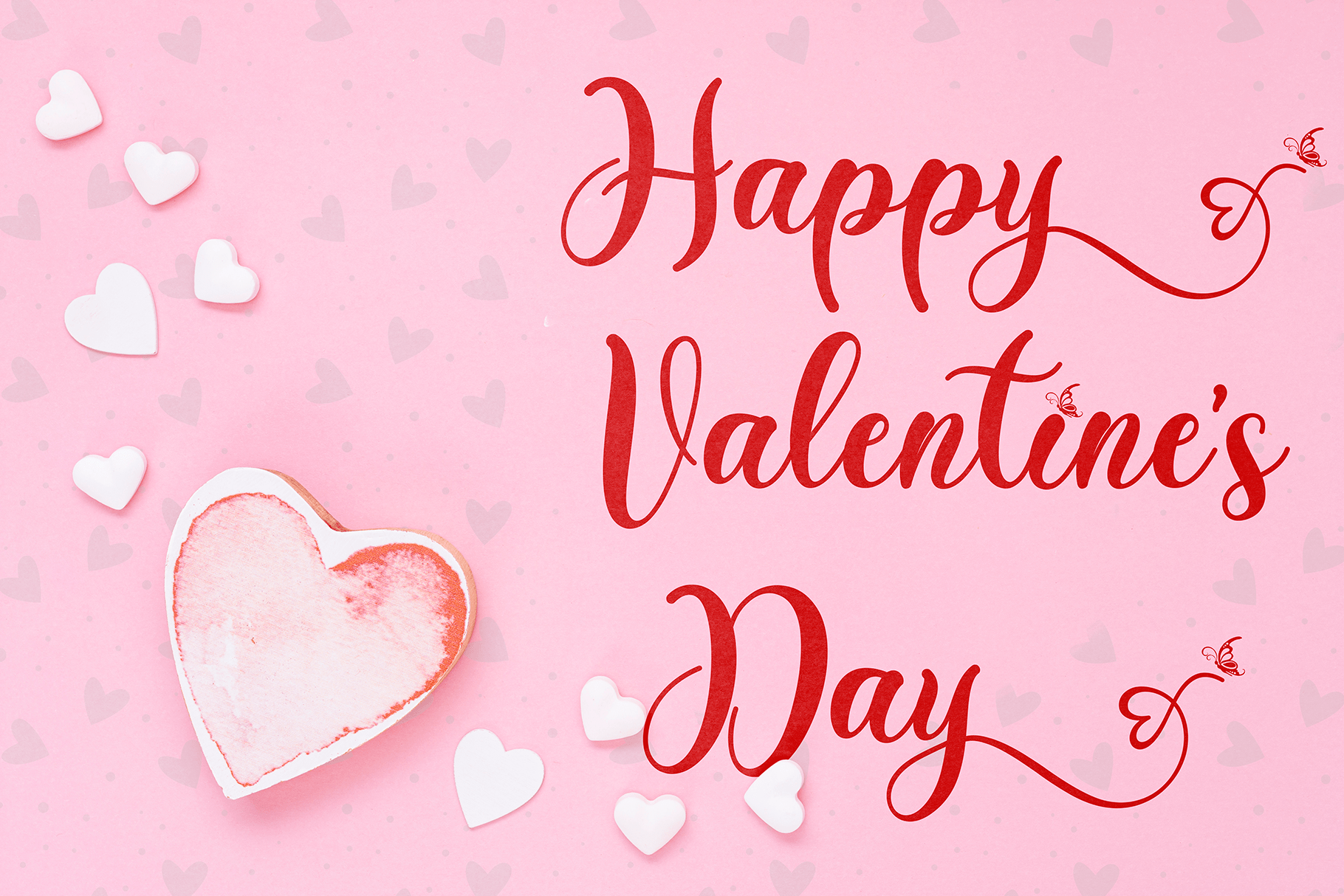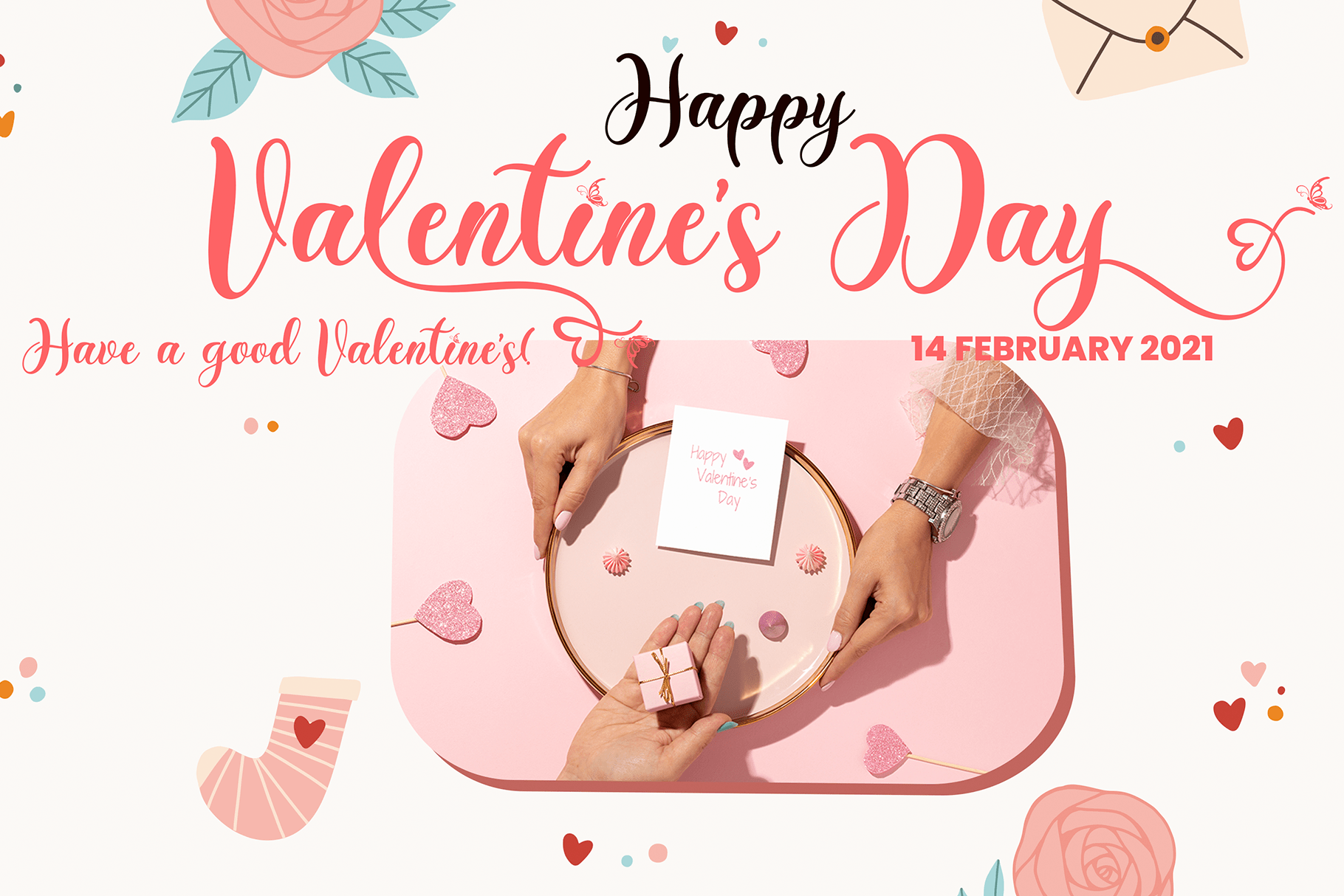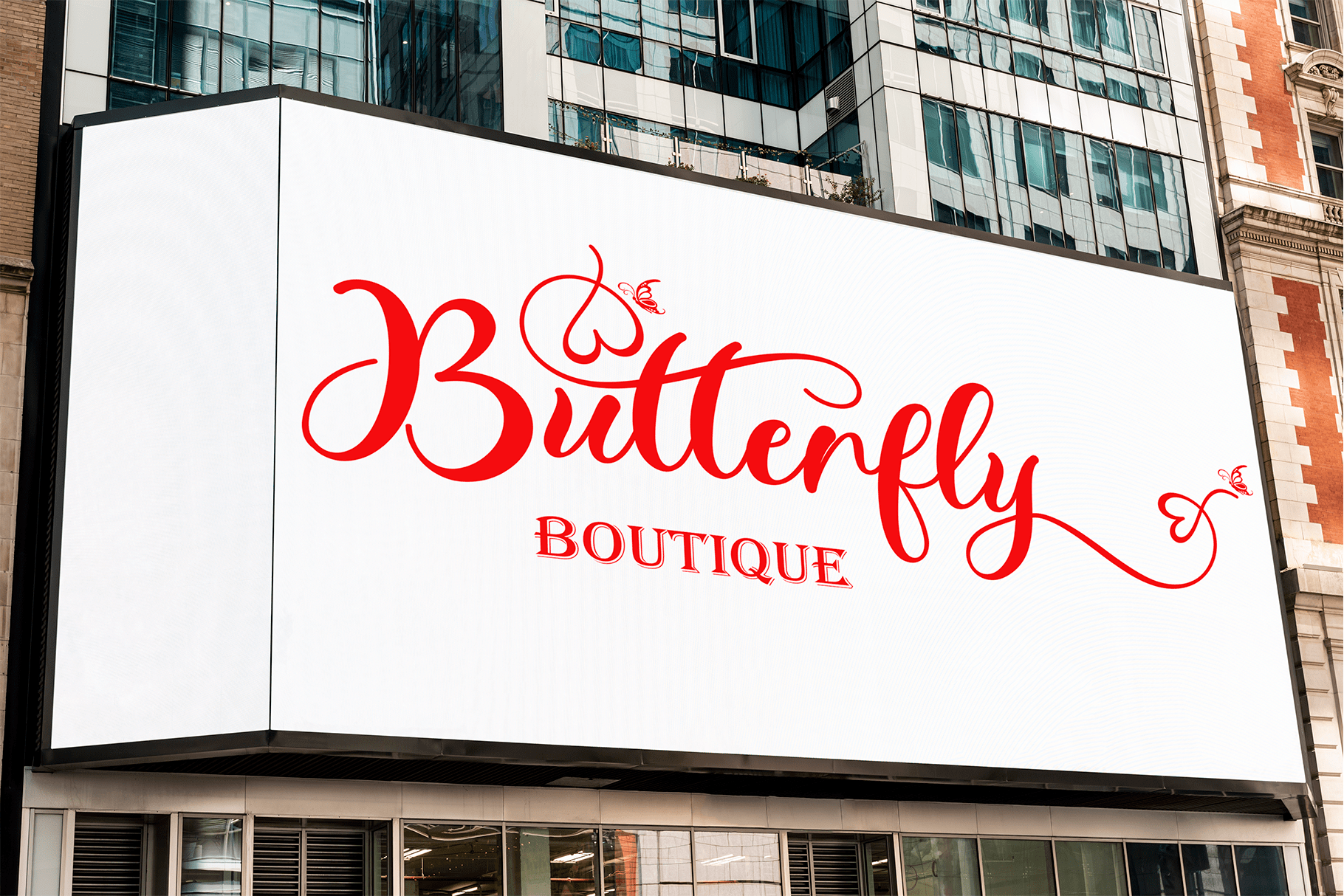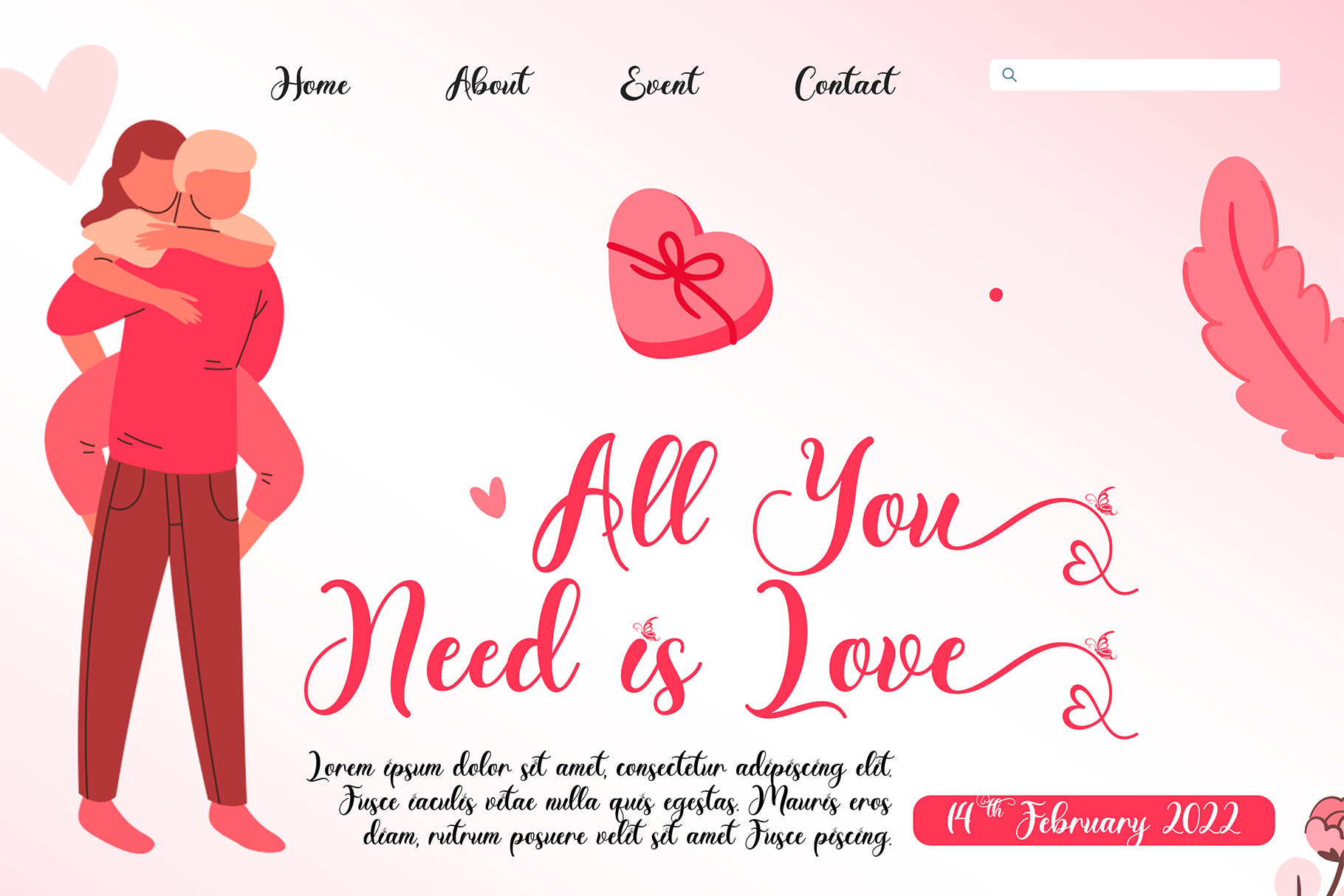
Your Everything Script Font
It’s a very beautiful and unique calligraphy font. This font is decorated with a unique and attractive butterfly. This font is perfect for valentine, christmas, winter, wedding, photography, promotion, and others. The decoration on this font is very easy to use, because it has been specially designed and there are instructions for its use in the preview. Thank you:)